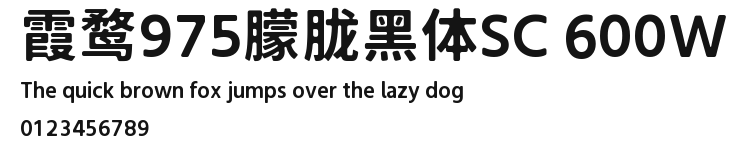
霞鹜975朦胧黑体SC 600W Preview
• Font Name: 霞鹜975朦胧黑体SC 600W
• Font ID: Version 2.00;February 24, 2021;LXGW;LXGW975GothicSC-600W;2020;FLVI-614
• Full Font Name: 霞鹜975朦胧黑体SC 600W
• Version: Version 2.00;February 24, 2021
• PostScript Name: LXGW975HazyGoSC-600W
• Character Count: 30945
About 霞鹜975朦胧黑体SC 600W.ttf
霞鹜975朦胧黑体SC 600W.ttf is a modern, elegant sans-serif font designed for ultimate readability and visual harmony. Perfect for branding, headlines, web design, and print materials.